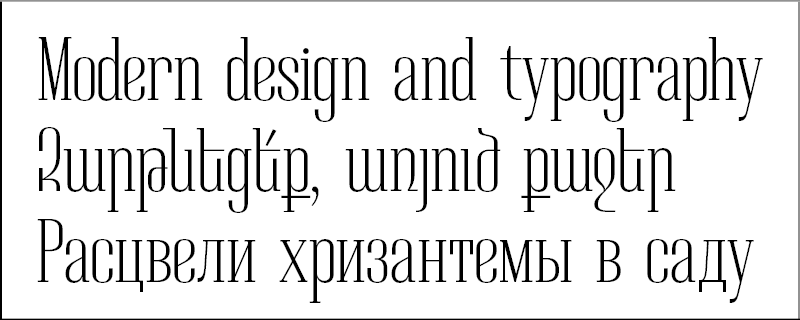
Display typefaces, Edik Ghabuzyan
GHEA Yerkar
Design date: 2017
The font family includes Armenian, Latin and Cyrillic alphabet systems.
The font can be used as a Display or Title font.